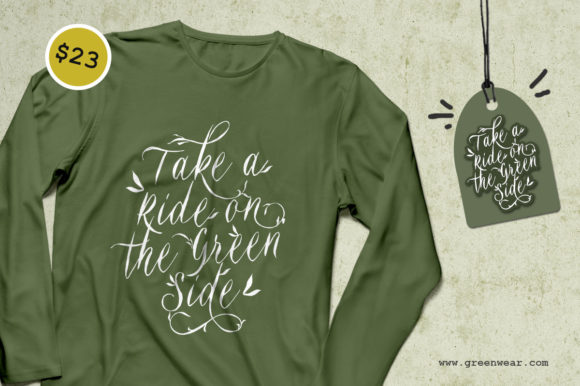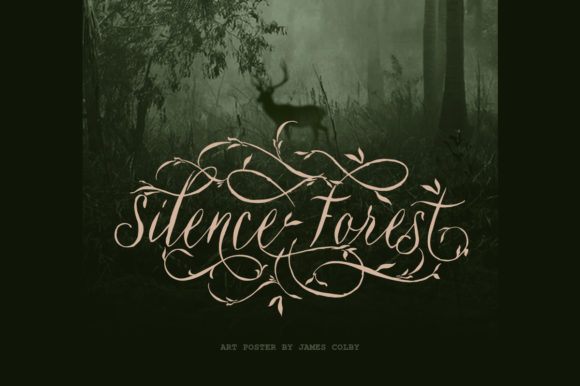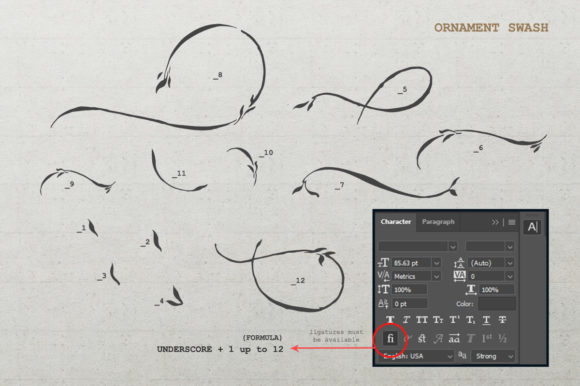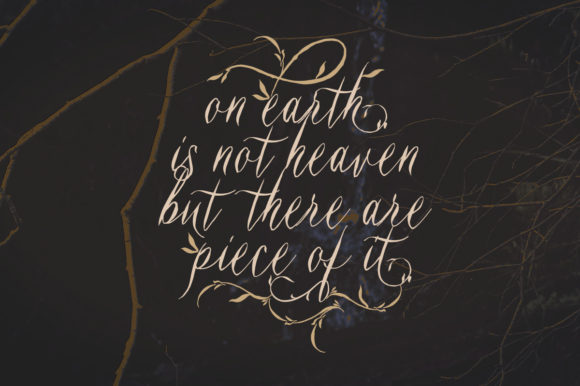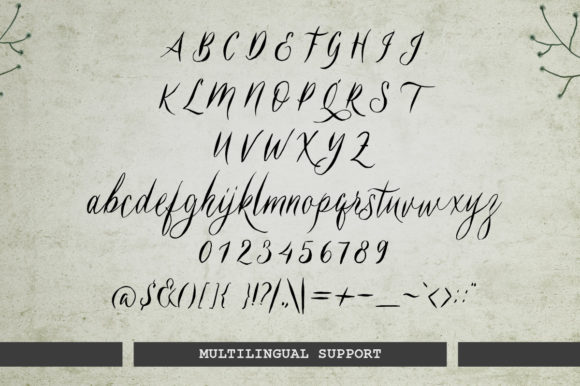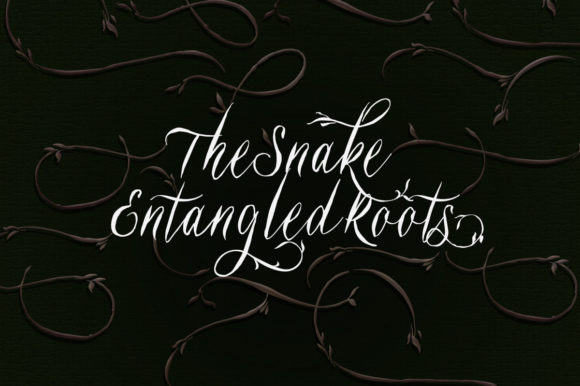
Introducing Belukar Font: The Perfect Addition to Your Typography Collection
Are you a designer or crafter looking for a font that can add a touch of elegance and romance to your projects? Look no further than Belukar Font. This beautiful, handwritten script font is perfect for a wide range of applications, from greeting cards to headlines, and is sure to become a staple in your typography collection.
What is Belukar Font?
Belukar is a dainty and delicate handwritten font that is sure to capture the hearts of designers and crafters alike. With its intricate and flowing lines, this lovely script font has a wide spectrum of applications, making it a versatile addition to any project. Whether you’re creating a romantic greeting card, a stylish headline, or a beautiful journal entry, Belukar Font is the perfect choice.
Key Features of Belukar Font
So, what makes Belukar Font so special? Here are just a few of its key features:
- Delicate and dainty design: Belukar Font features intricate and flowing lines that give it a delicate and dainty feel.
- Handwritten script style: This font has a beautiful, handwritten script style that adds a touch of elegance and romance to any project.
- Versatile applications: Belukar Font can be used for a wide range of applications, from greeting cards to headlines, and even journal entries.
- Easy to read: Despite its delicate design, Belukar Font is easy to read, making it perfect for both digital and print projects.
Uses for Belukar Font
So, what can you use Belukar Font for? The possibilities are endless! Here are just a few ideas to get you started:
- Greeting cards: Add a touch of romance and elegance to your greeting cards with Belukar Font.
- Headlines: Use Belukar Font to create beautiful and eye-catching headlines for your blog posts, articles, or social media posts.
- Journaling: Add a touch of whimsy and elegance to your journal entries with Belukar Font.
- Stationery: Use Belukar Font to create beautiful and stylish stationery, including letterheads, invitations, and more.
Tips for Using Belukar Font
Here are a few tips for getting the most out of Belukar Font:
- Pair with bold fonts: Pair Belukar Font with bold fonts to create a striking contrast and add visual interest to your project.
- Use in moderation: While Belukar Font is beautiful, it can be a bit delicate. Use it in moderation to avoid overwhelming your project.
- Experiment with colors: Belukar Font looks beautiful in a range of colors. Experiment with different colors to find the perfect fit for your project.